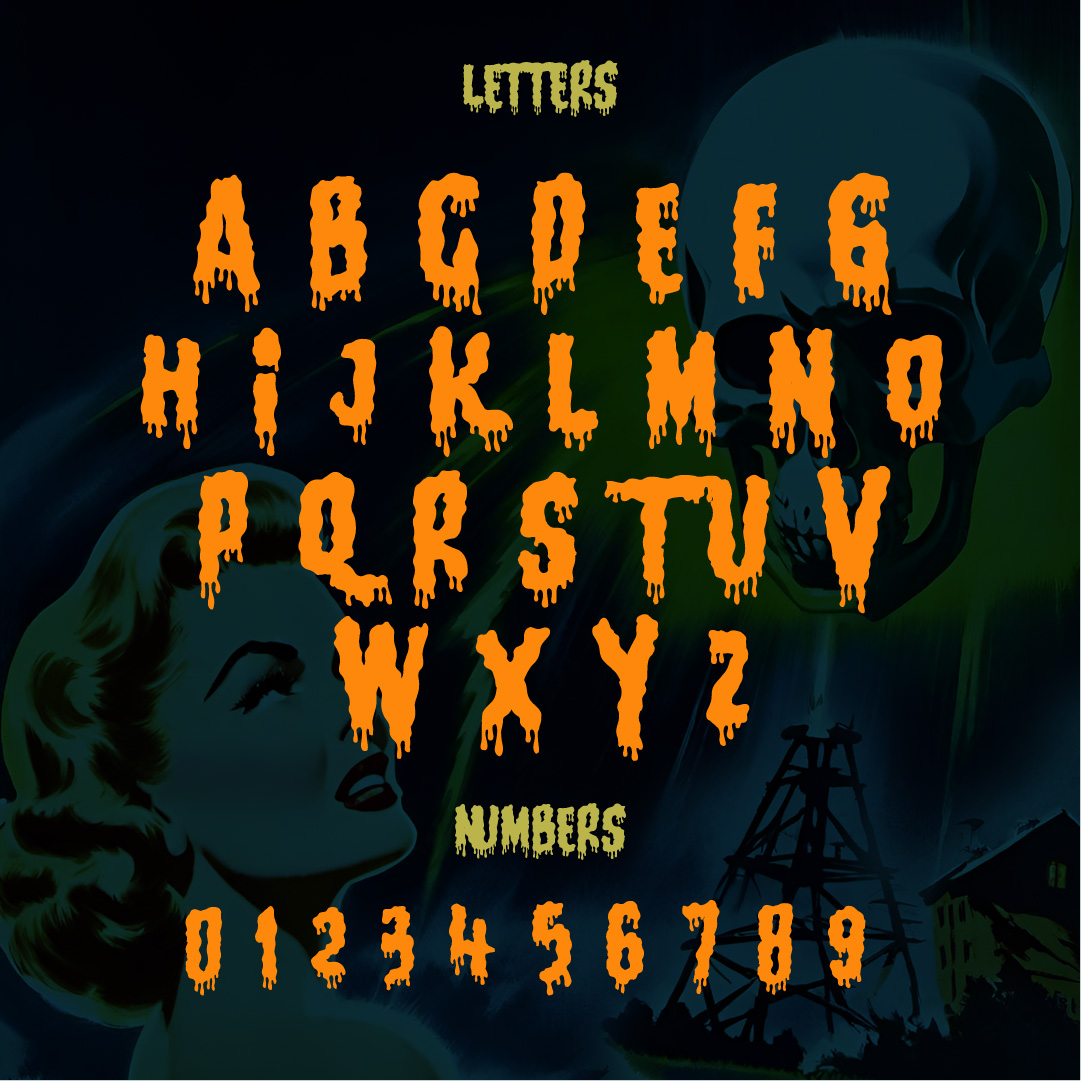
Atomic Terror
Atomic Terror: Retro font evokes mid-century horror with bold, dripping design.
Welcome to the bone-chilling world of Atomic Terror, where nightmares come alive and terror drips from every letter. This spine-tingling typeface transports you back to the mid-century Atomic Age horror films that left audiences trembling in their seats. With its bold, dripping design and eerie details, Atomic Terror is the perfect choice for anyone seeking to add an extra dose of fright to their designs.
Whether you’re creating haunting Halloween invitations or designing spine-chilling posters for a horror film festival, Atomic Terror guarantees your message will be delivered with bone-chilling impact. Every letter oozes with dread as if it were plucked straight from a vintage horror movie poster. Prepare yourself for a typographic journey into the darkest depths of fear with Atomic Terror – beware, this font may consume your soul!